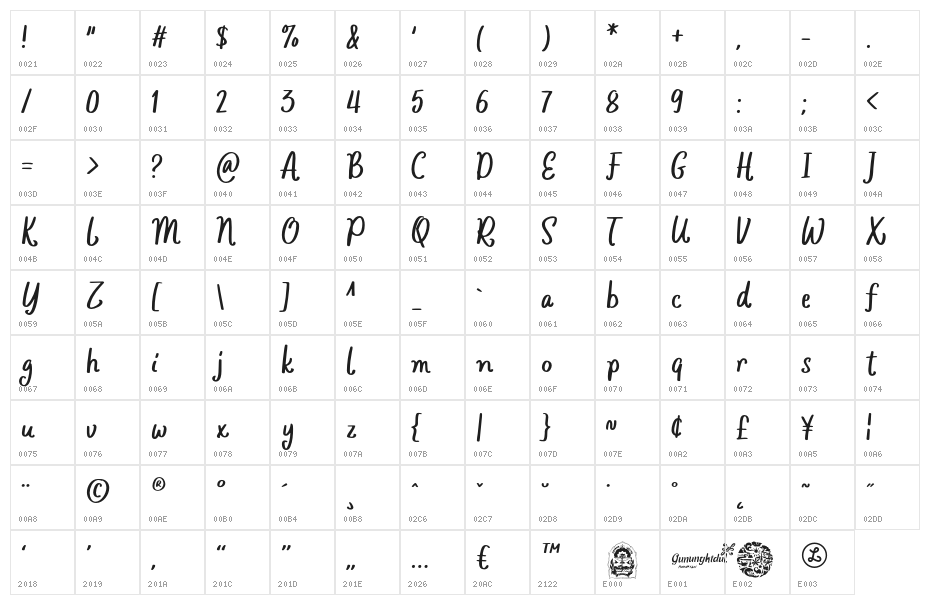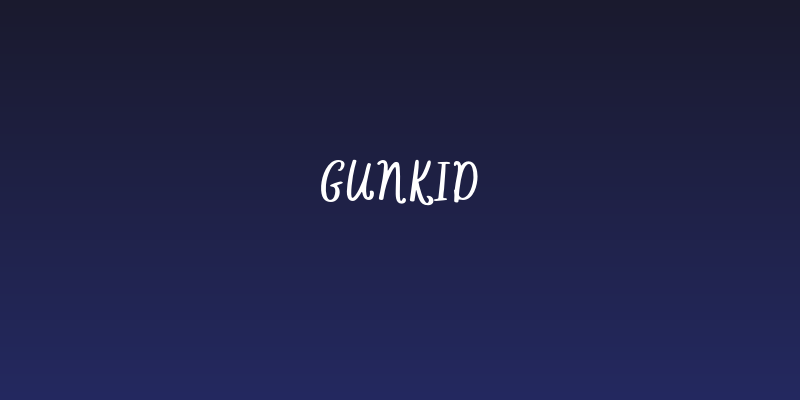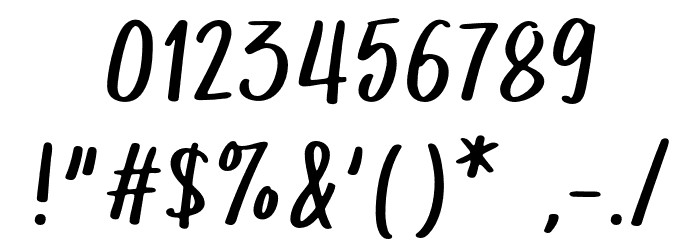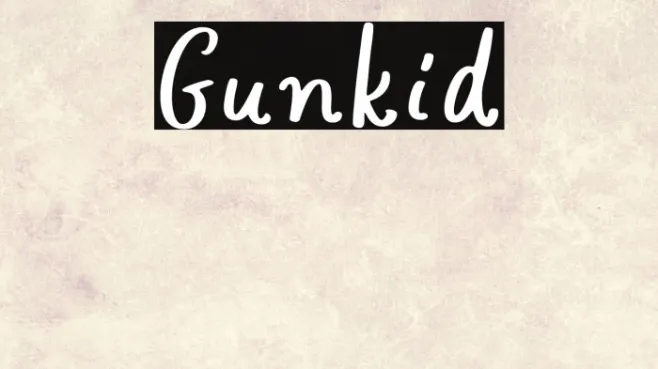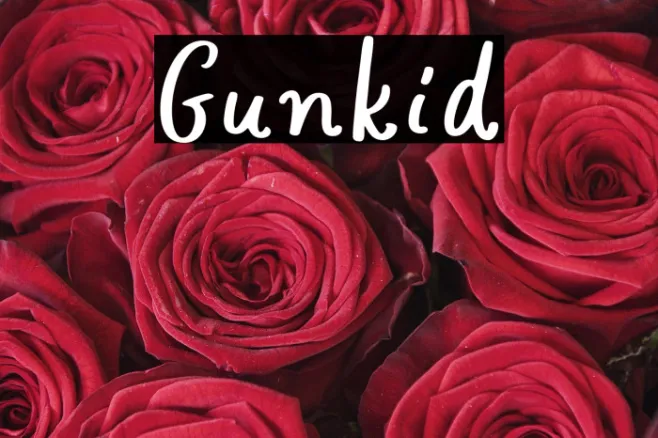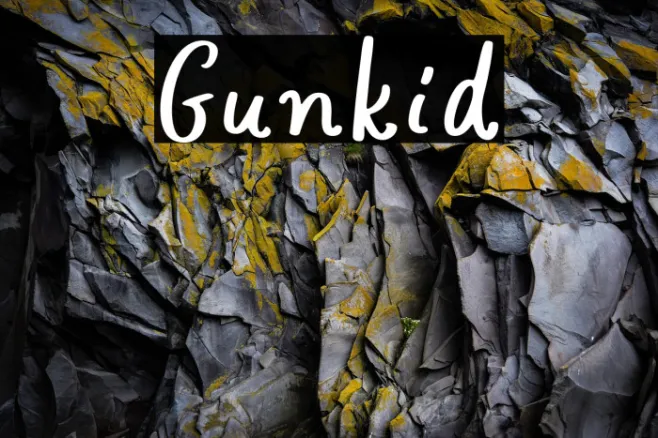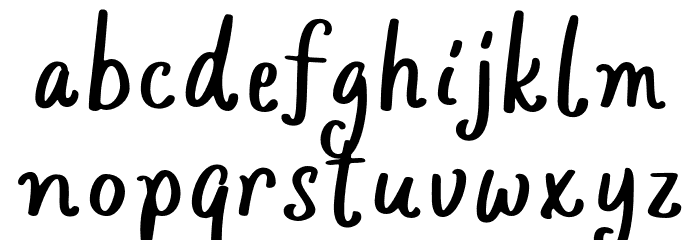
Gunkid Font
Gunkid Description
This font features a playful and casual script style, characterized by its smooth, flowing curves and slightly irregular strokes. The letters are connected in a way that mimics natural handwriting, giving it a personal and approachable feel. The uppercase letters are bold and prominent, while the lowercase letters maintain a consistent flow, enhancing readability. The numerals and special characters are designed to match the overall style, ensuring cohesion across all text elements. This font's charm lies in its ability to convey a sense of warmth and friendliness, making it suitable for a variety of creative applications.
| Overall Style | Casual, Handwritten |
| Proposed Projects | Ideal for greeting cards, invitations, personal branding, and creative projects that require a friendly and approachable touch. |